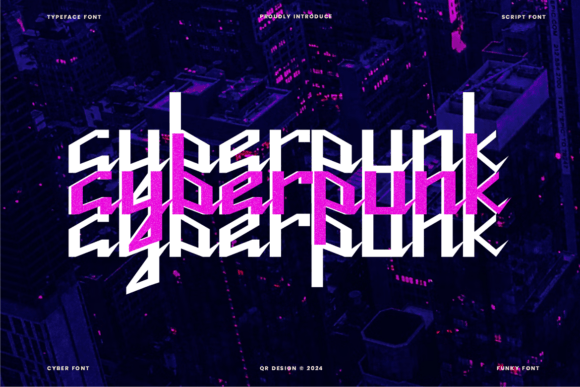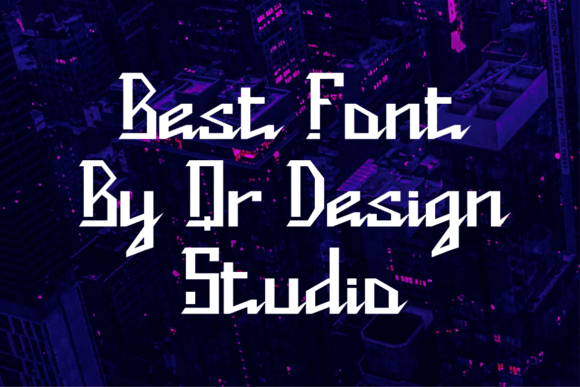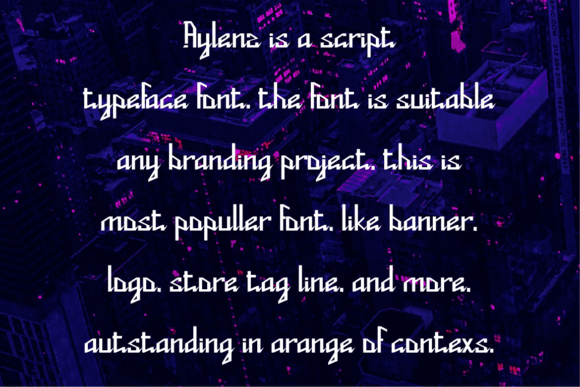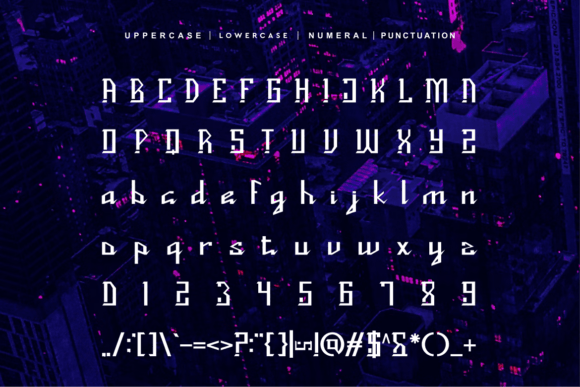
Aylenz Font: The Quirky Display Font You Need for Your Designs
Aylenz font is a one-of-a-kind display font that has been making waves in the design community. Its quirky and unique style makes it an excellent choice for a wide range of contexts, from branding and advertising to crafting and DIY projects. In this article, we’ll dive into the world of Aylenz font, exploring its features, uses, and benefits for designers and crafters alike.
The Story Behind Aylenz Font
Aylenz font is a relatively new addition to the world of typography, but it has quickly gained popularity among designers and crafters. The font’s unique style is characterized by its irregular shapes, uneven lines, and playful flair. Aylenz font is the perfect choice for those who want to add a touch of personality and whimsy to their designs.
Features of Aylenz Font
Aylenz font boasts a range of features that make it an excellent choice for designers and crafters. Some of its key features include:
- Unique and quirky style: Aylenz font has a one-of-a-kind style that sets it apart from other display fonts.
- Highly legible: Despite its quirky style, Aylenz font is highly legible, making it perfect for use in a variety of contexts.
- Versatile: Aylenz font can be used in a wide range of contexts, from branding and advertising to crafting and DIY projects.
- Easy to use: Aylenz font is easy to use and can be easily integrated into your designs.
Uses of Aylenz Font
Aylenz font is an incredibly versatile font that can be used in a wide range of contexts. Some of the most popular uses of Aylenz font include:
- Branding and advertising: Aylenz font is perfect for use in branding and advertising campaigns, adding a touch of personality and whimsy to your marketing materials.
- Crafting and DIY projects: Aylenz font is a great choice for crafters and DIY enthusiasts, adding a personal touch to your handmade projects.
- Signage and display: Aylenz font is perfect for use in signage and display materials, such as posters, flyers, and brochures.
- Digital media: Aylenz font can be used in digital media, such as social media graphics, blog posts, and website headers.
Benefits of Using Aylenz Font
Aylenz font offers a range of benefits for designers and crafters, including:
- Adds personality to your designs: Aylenz font adds a touch of personality and whimsy to your designs, setting them apart from the crowd.
- Increases legibility: Aylenz font is highly legible, making it perfect for use in a variety of contexts.
- Versatile: Aylenz font can be used in a wide range of contexts, making it a great addition to your font library.
- Easy to use: Aylenz font is easy to use and can be easily integrated into your designs.
Tips for Using Aylenz Font
Here are a few tips for using Aylenz font in your designs:
- Use it sparingly: Aylenz font is a bold and attention-grabbing font, so use it sparingly to avoid overwhelming your designs.
- Pair it with other fonts: Aylenz font pairs well with other fonts, so experiment with different font combinations to find the perfect look for your designs.
- Experiment with colors and textures: Aylenz font looks great in a variety of colors and textures, so don’t be afraid to experiment and find the perfect look for your designs.
Aylenz font is a unique and interesting display font that is perfect for designers and crafters looking to add a touch of personality and whimsy to their designs. With its quirky style, high legibility, and versatility, Aylenz font is an excellent choice for a wide range of contexts. Whether you’re working on a branding campaign, crafting a DIY project, or creating digital media, Aylenz font is sure to make your designs stand out.